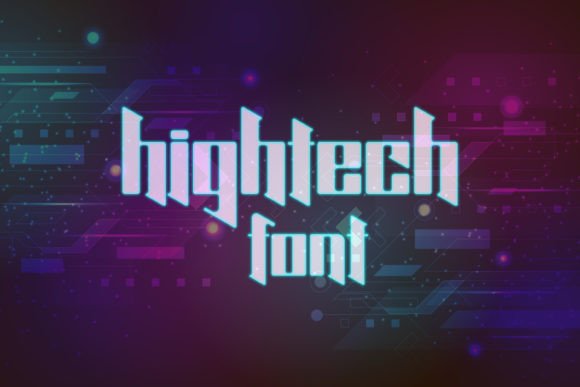
Introducing Hightech Font, the ultimate choice for those seeking a font that truly stands out. With its bold and sophisticated design, this display font sets the stage for captivating visual experiences. Crafted with meticulous attention to detail, Hightech Font is more than just a typeface – it's a work of art.
Designed by the talented Abuhasnat, Hightech Font embodies the essence of industrial-grade aesthetics. Its sleek lines and powerful curves evoke a sense of strength and innovation, making it the perfect choice for modern designs. Whether you're creating title headings, trendy T-shirt designs, mobile applications, or film titles, this font is guaranteed to leave a lasting impression.
What sets Hightech Font apart is its extensive collection of 99 unique glyphs and 96 meticulously crafted characters. Each character has been carefully designed to ensure maximum legibility and visual impact. From bold capital letters to intricate lowercase forms, this font offers endless possibilities for creative expression.
But Hightech Font is not just about aesthetics – it's also about functionality. Its clean and well-defined letterforms ensure easy readability across different mediums and sizes. Whether it's on a website, printed materials, or digital interfaces, this font adapts seamlessly to any context.
Experience the power of Hightech Font and take your designs to new heights. With its captivating presence, this font is guaranteed to captivate your audience and make your message unforgettable. Don't settle for ordinary fonts – choose Hightech Font and make a bold statement.
Unlock your creativity with Hightech Font and let your imagination soar. Whether you're a professional designer or a creative enthusiast, this font will elevate your projects and set you apart from the crowd. Don't miss out on this opportunity to enhance your visual storytelling.